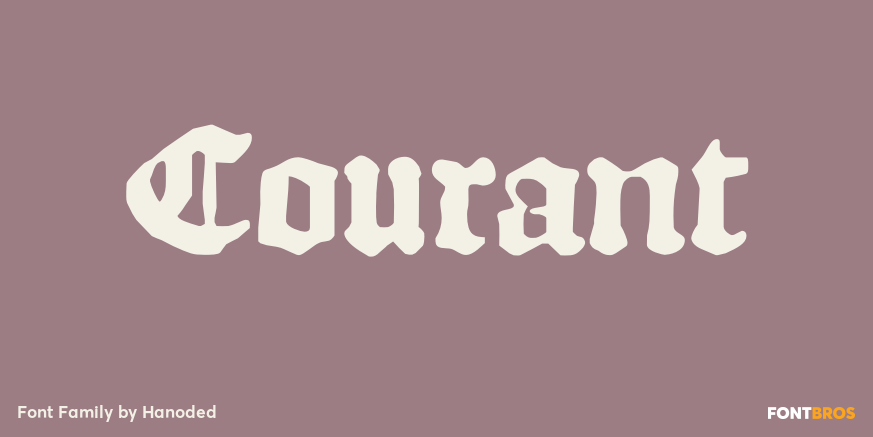
Courant
About Courant
?Courant? means ?newspaper?. Courant font was modeled on 17th century Dutch newspapers and most of the glyphs are authentic. The ?modern? glyphs, like @, $, ?, * and several others have been designed by me, as they were not in use in the 1600\’s.